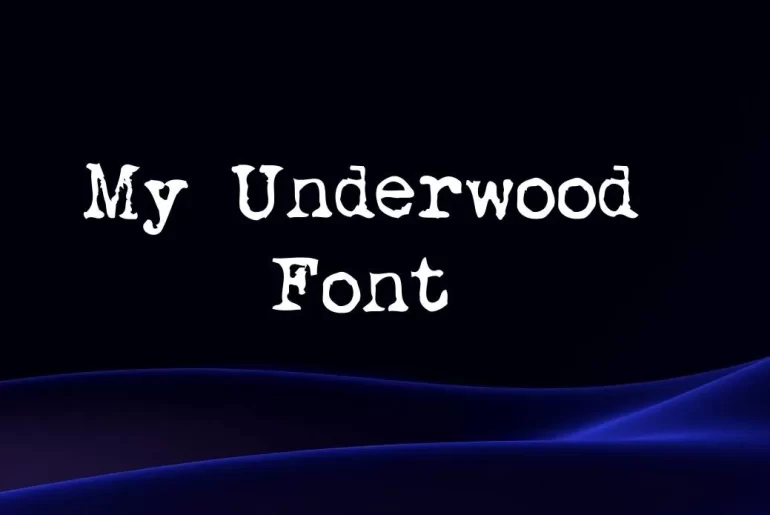
Michael Tension created the elegant typewriter font known as My Underwood. There are 91 defined characters and 88 distinct glyphs in my Underwood font. The typeface includes characters from the Basic Latin (79), Latin-1 Supplement (7), and General Punctuation Unicode character ranges (4).
The characters of this font are clean and distinctive which makes it more amazing. The characters of this font have been designed with both uppercase and lowercase letters.
Use of My Underwood Font
This stylish serif font has no shortage of usage, as it has been comprised of uppercase and lowercase letters which expand the usage of this font to no less. You can download this otf file on your pcs and create amazing designs in Adobe, Canva, CSS, and many other designing platforms which make your designs more valuable.
Its slightly italic bold texture appearance makes it more suitable for designing purposes on websites, creating wedding cards, and even for heading purposes in word or any other documents.
Is My Underwood Font a good font?
Yes, this font style is used by a number of designers in multiple designs. So, yes this font is an amazing font.
What is My Underwood Font used for?
It can be used for multiple purposes; it can be used for designing purposes and also to create official documents. It has no shortage of usage.